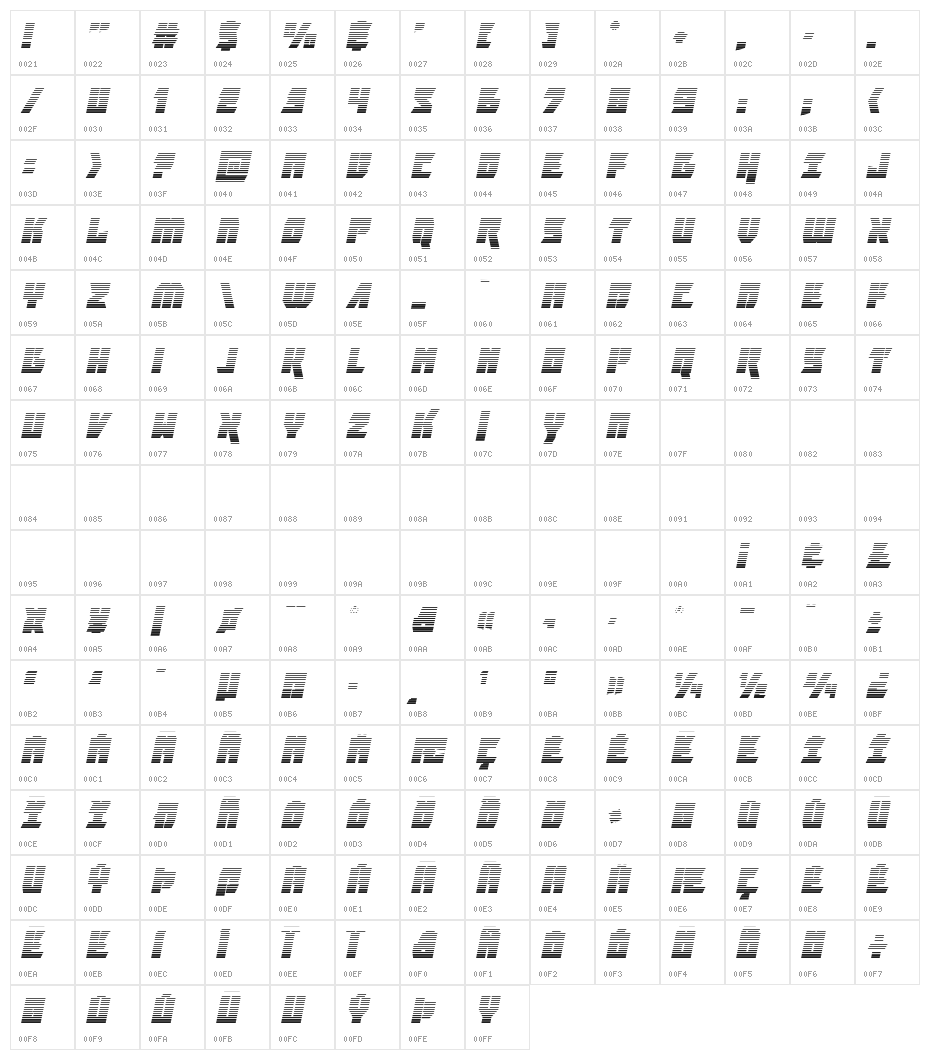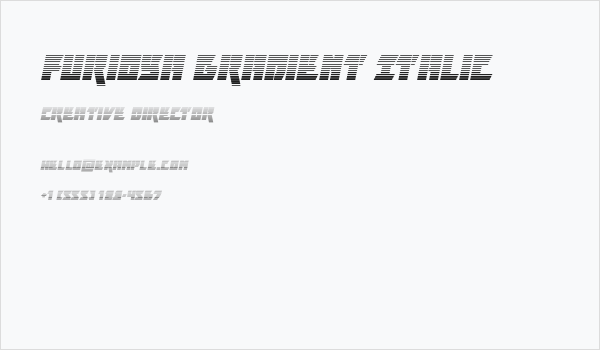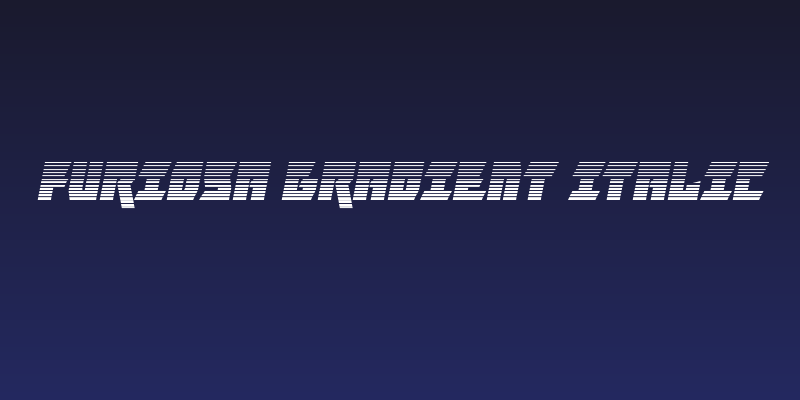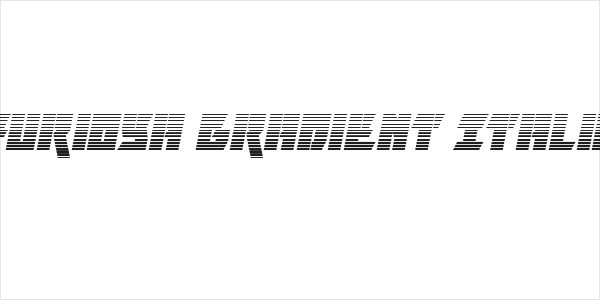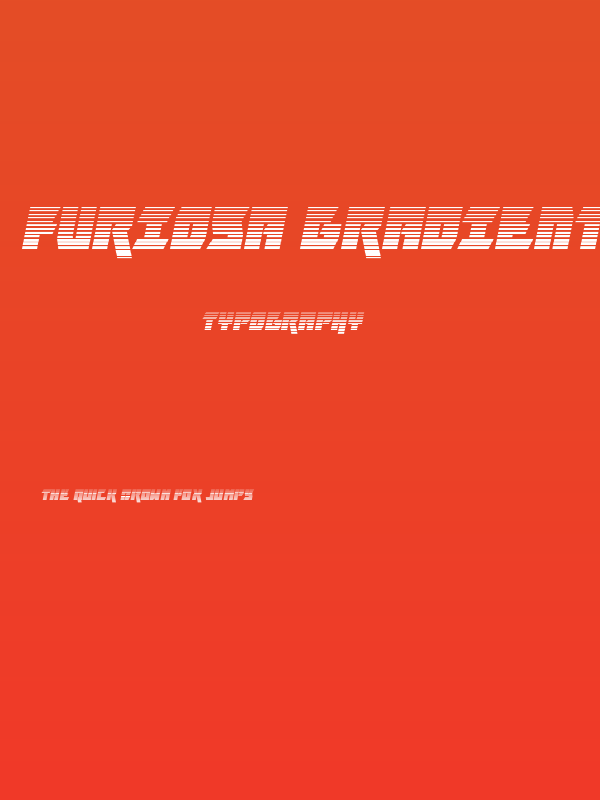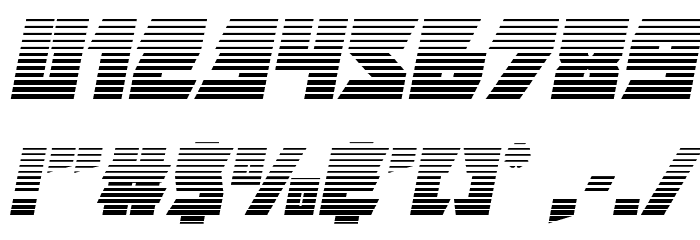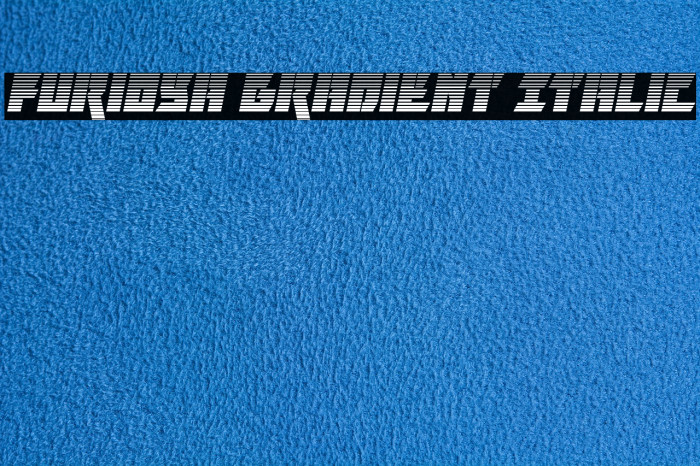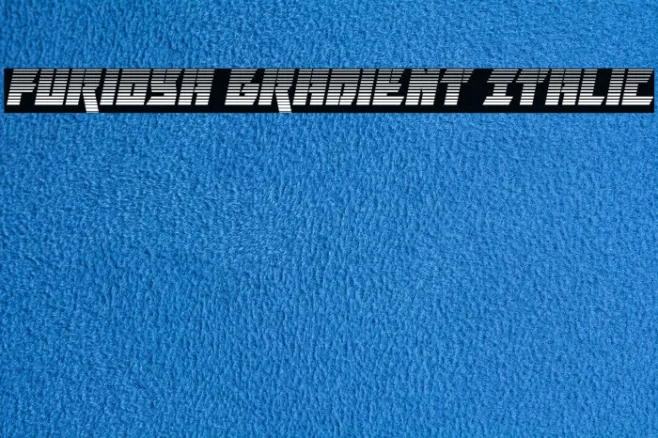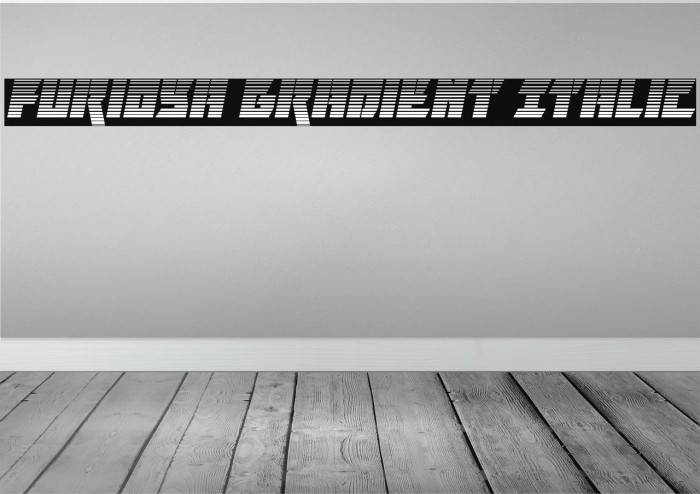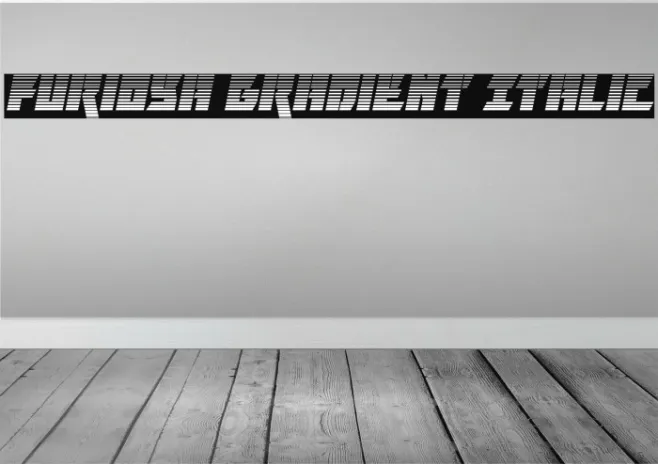
Furiosa Gradient Italic Font
Furiosa Gradient Italic Description
This font features a bold, italicized style with a distinctive gradient effect created by horizontal lines. The characters are constructed with a futuristic and dynamic appearance, emphasizing movement and energy. Each letter and number is composed of parallel lines that form a cohesive gradient, giving the font a unique, layered look. The design is highly stylized, making it suitable for eye-catching displays and modern themes. The uppercase and lowercase letters maintain a consistent style, with the same gradient effect applied uniformly across all characters. The special characters are also designed to match the overall aesthetic, ensuring a seamless integration into any project.
| Proposed Projects | Ideal for futuristic branding, sci-fi posters, video game titles, and modern advertising campaigns. |